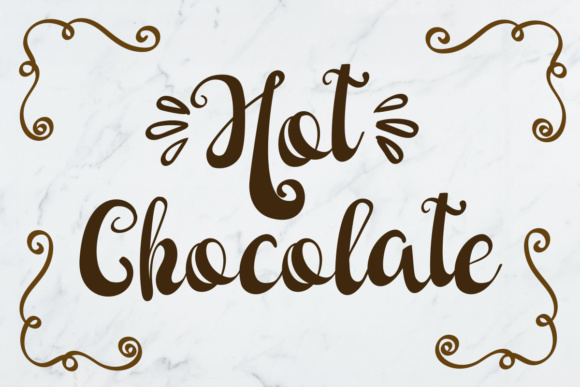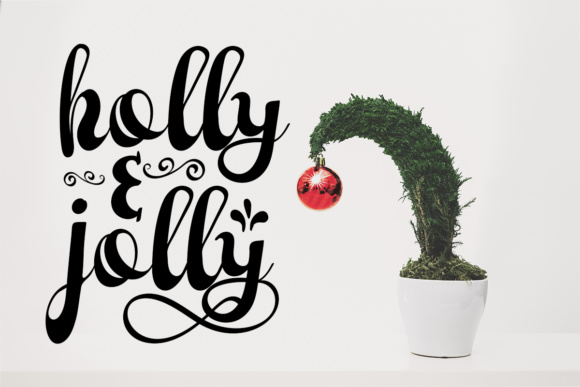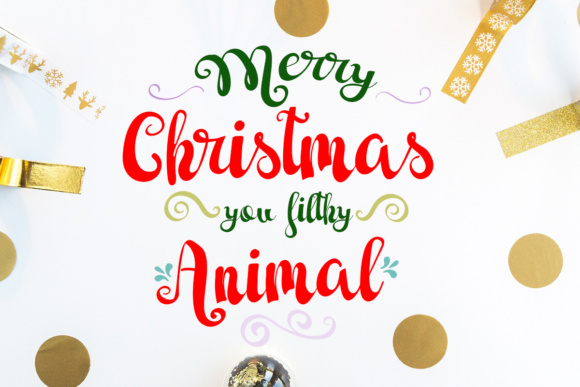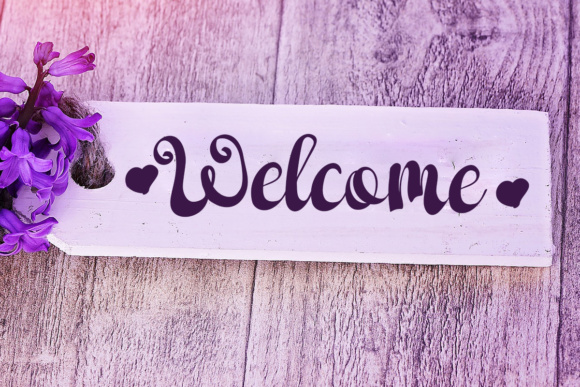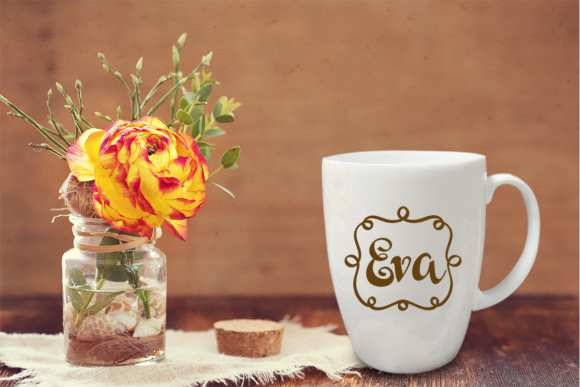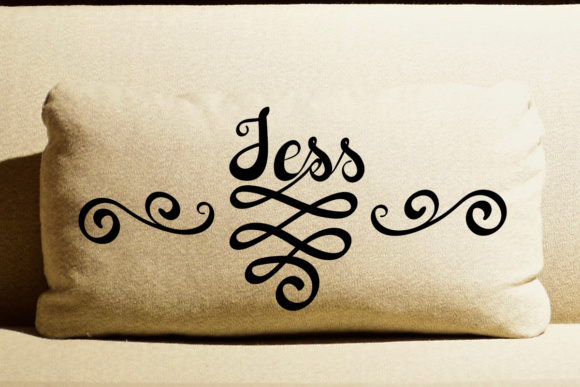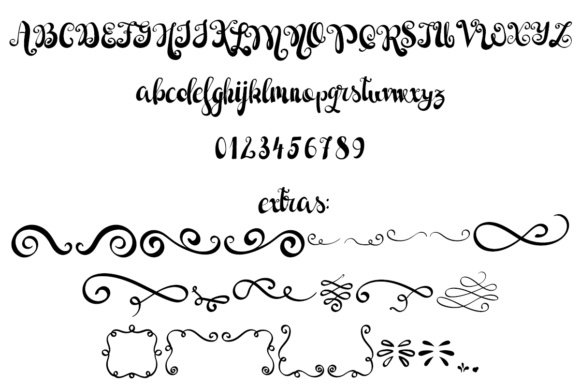
Hot Chocolate Font
About Hot Chocolate Font
The Hot Chocolate is a beautiful hand lettered font that is clear and easy to read. It includes lots of ligatures for an organic feel.
It can be used for quotes, packaging, branding, etc, and has extra elements to use on your designs: ornamental swirls, corners and a frame.